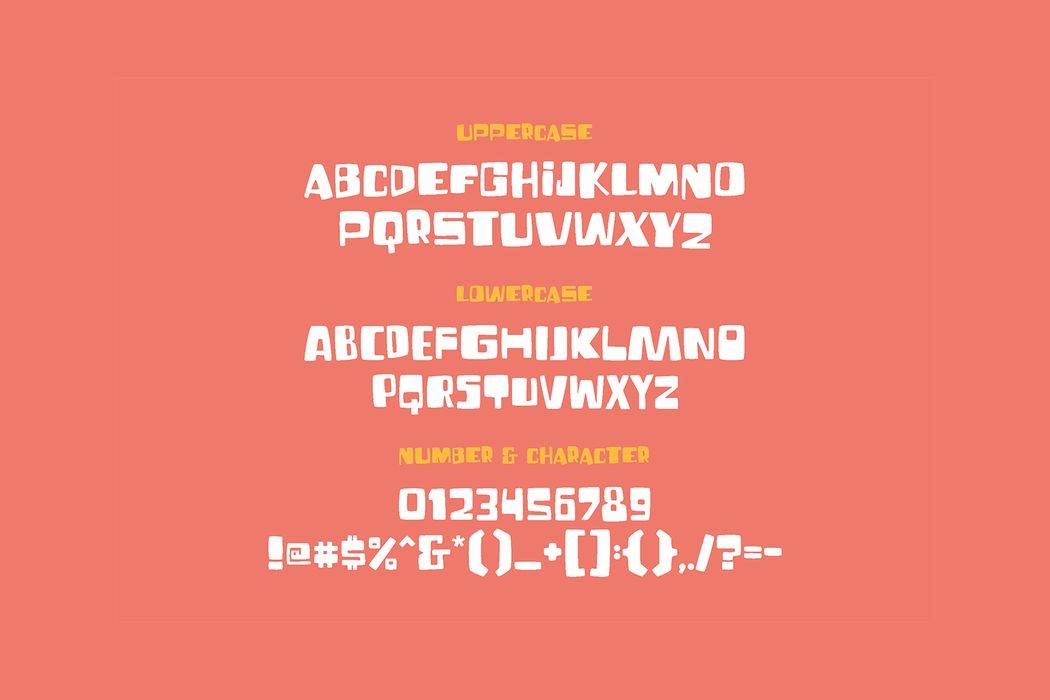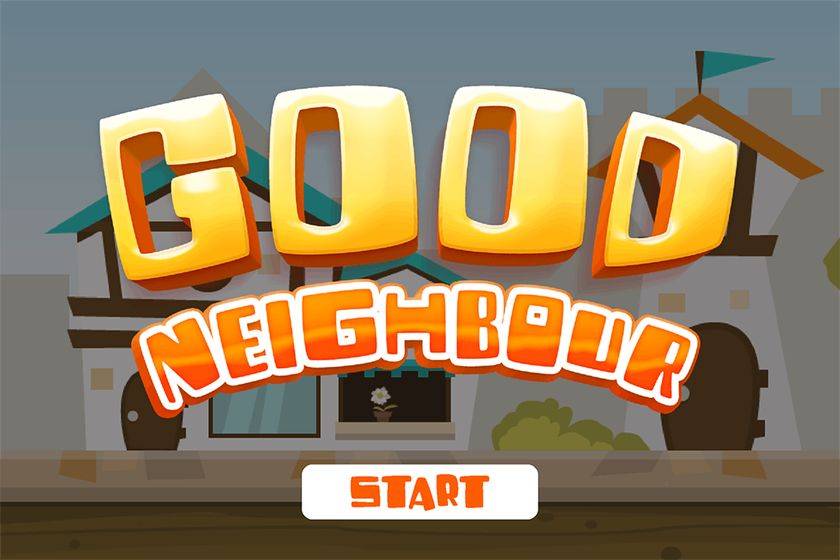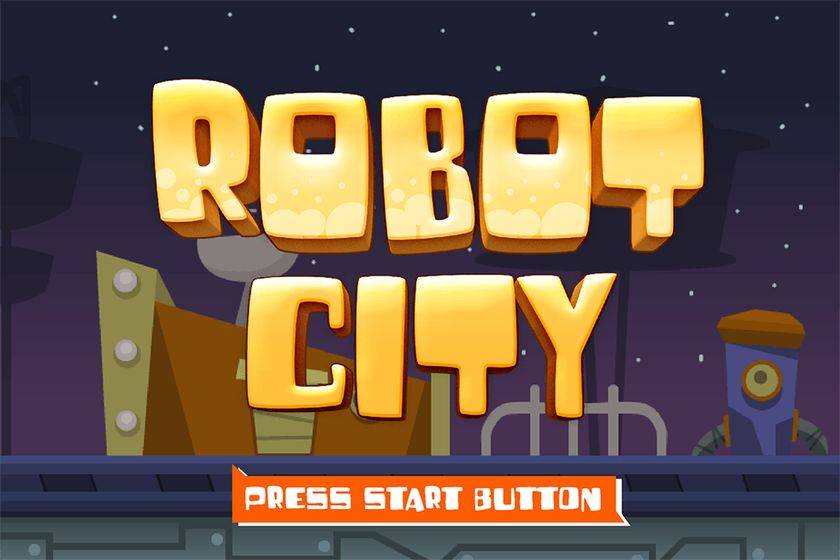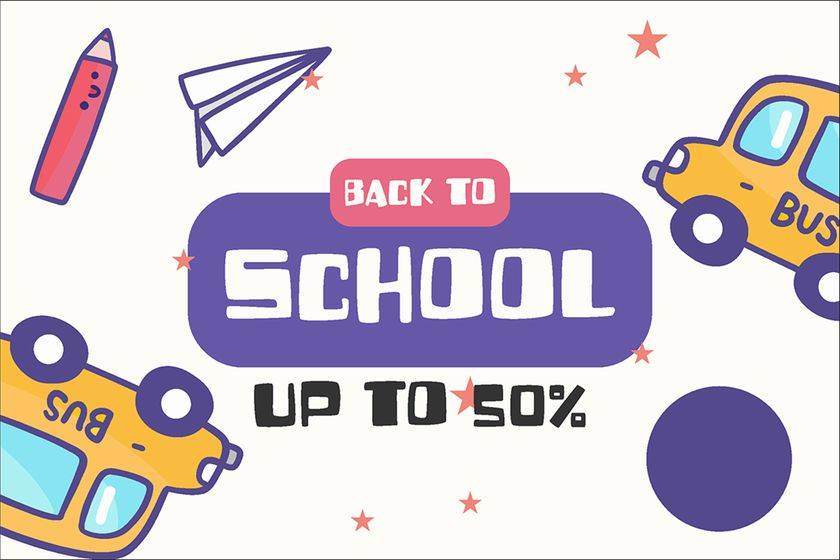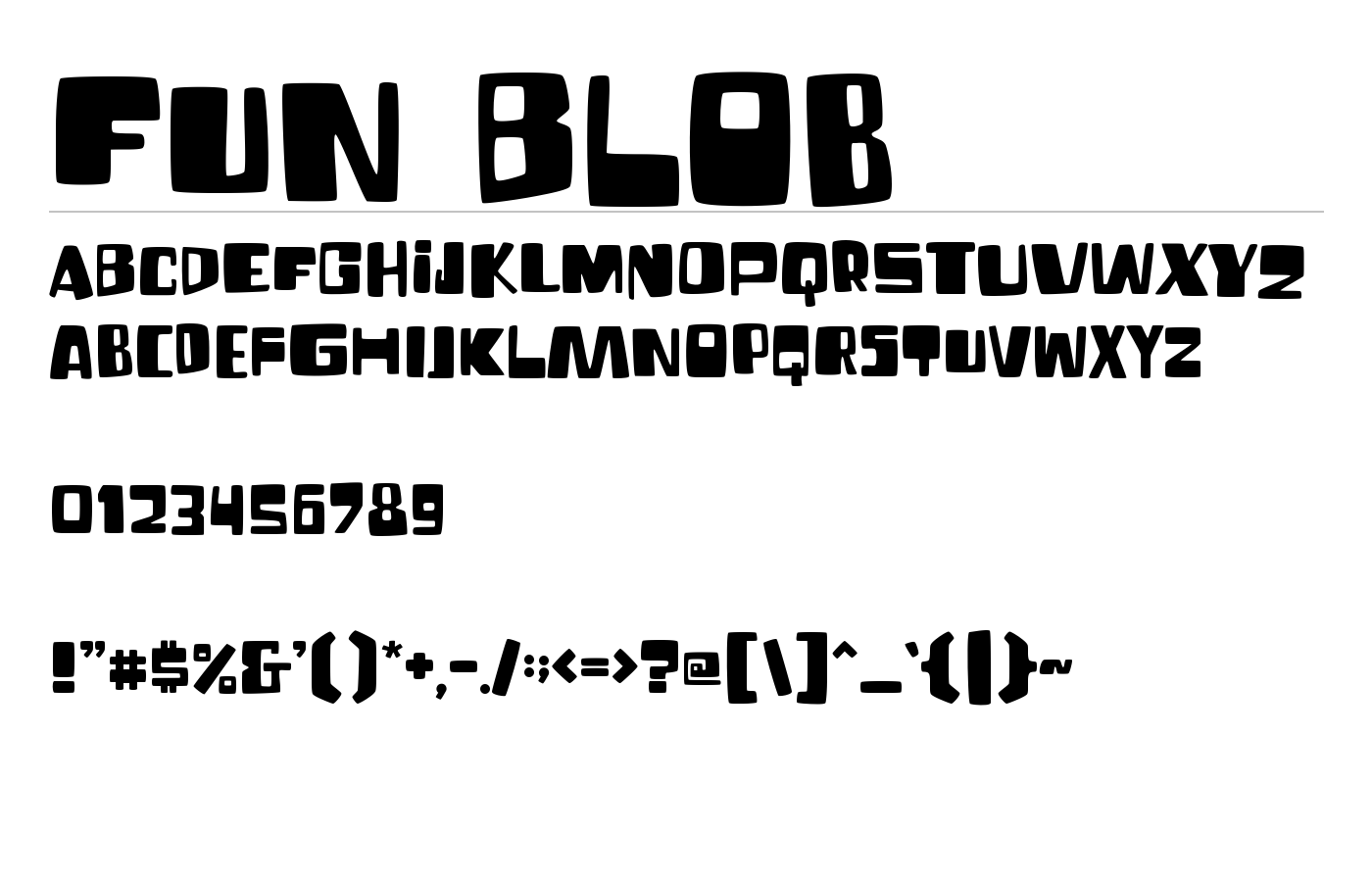
Fun Blob Font is a bold, playful sans serif typeface with chunky, irregular shapes that give it a quirky, hand-formed feel. Its wide, slightly uneven letters and high x-height make it eye-catching and perfect for fun, creative designs like posters, logos, and children’s branding where an informal, energetic vibe is desired. This font works best for headlines and display purposes, adding a friendly and whimsical personality to any project.
Fun Blob Font
About Fun Blob Font